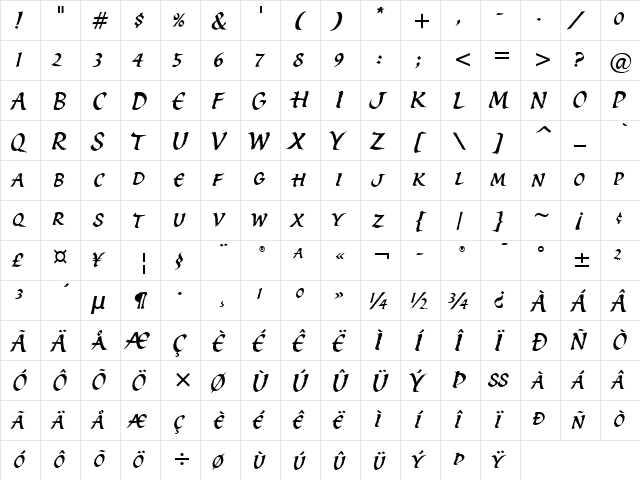
SpiritScf ITC Italic
Design Context for SpiritScf ITC Typeface
SpiritScf ITC is a composed and adaptable typeface that performs quietly and consistently across a wide range of design contexts. Its italic angle brings a sense of urgency and motion to the letterforms.
Pro Tip: Use SpiritScf ITC for emphasis, pull quotes, and subheadings where its slanted energy can add rhythm to the layout.